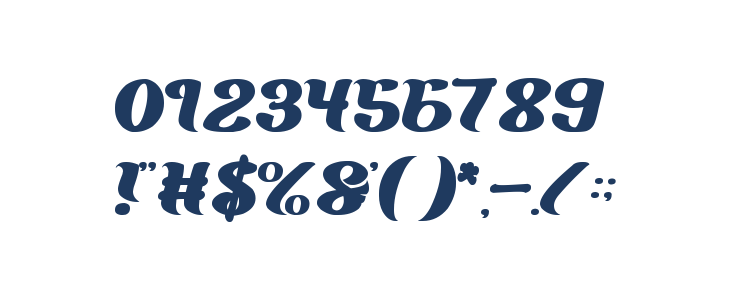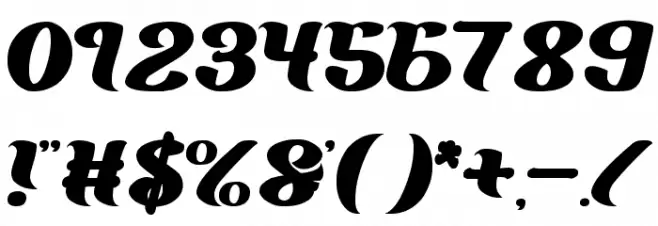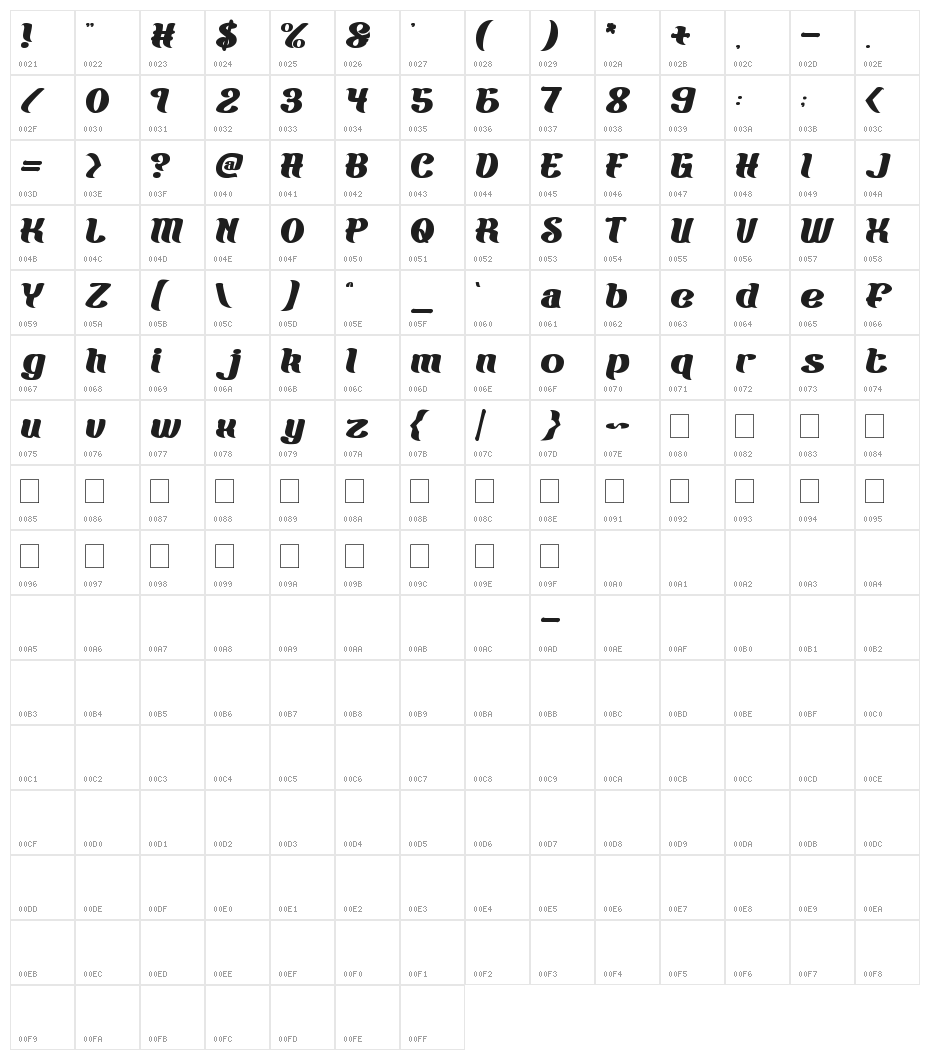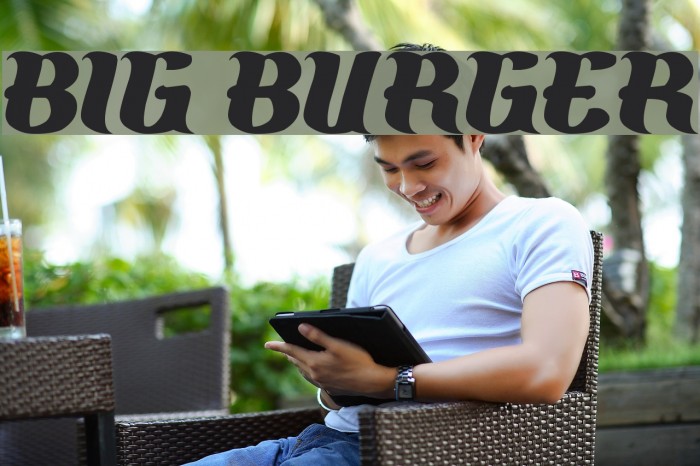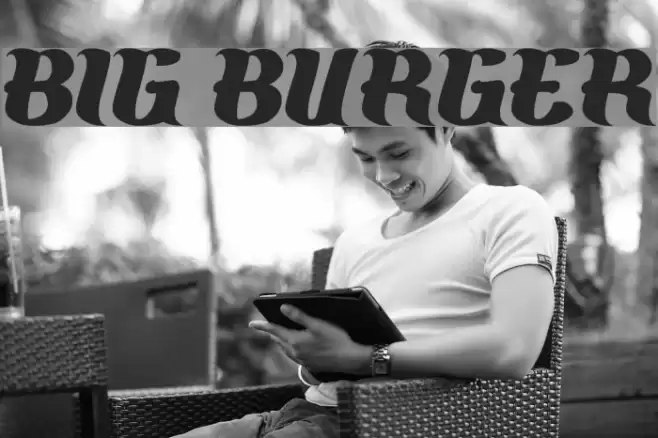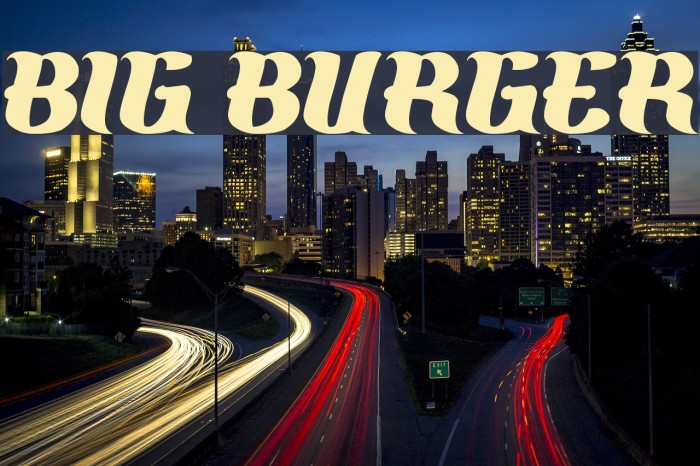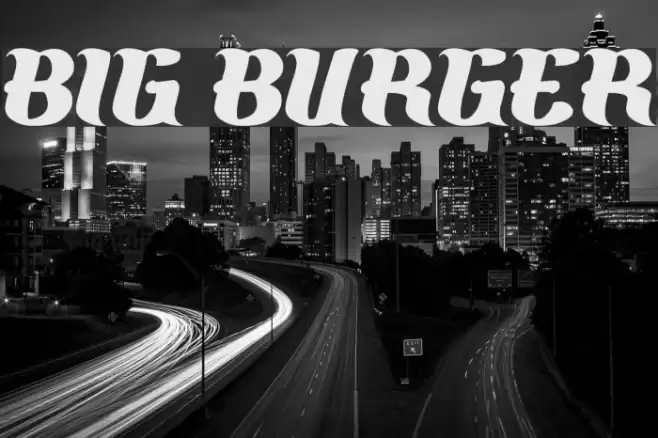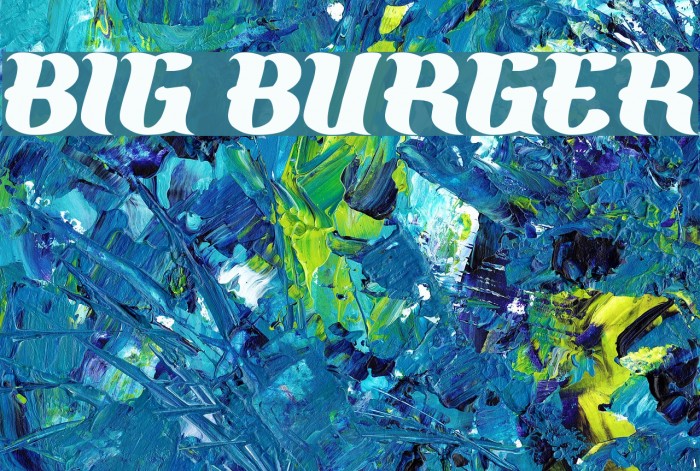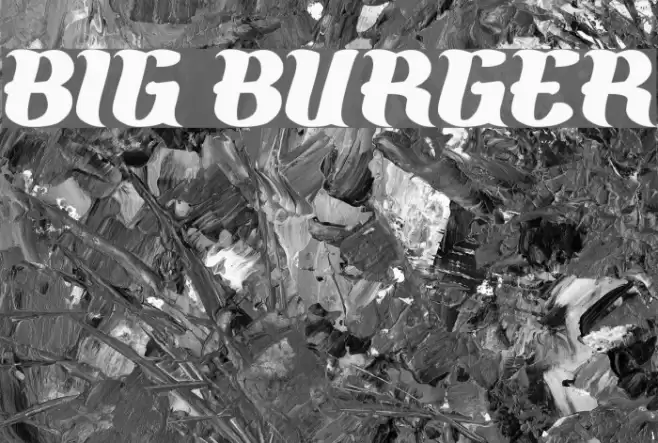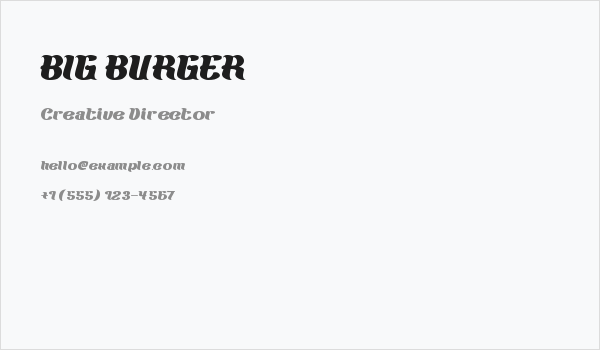
BIG BURGER Font
BIG BURGER Description
This font features bold, rounded characters with a playful and dynamic style. The letters are thick and have a slight slant, giving them a sense of movement and energy. The uppercase and lowercase letters maintain a consistent weight, contributing to a cohesive look. The numbers and special characters are designed to match the overall aesthetic, with similar rounded edges and bold strokes. This font's unique style makes it stand out, making it suitable for attention-grabbing designs.
| Overall Style | Playful and dynamic |
| Proposed Projects | Ideal for branding, posters, and packaging design where a fun and energetic vibe is desired. |